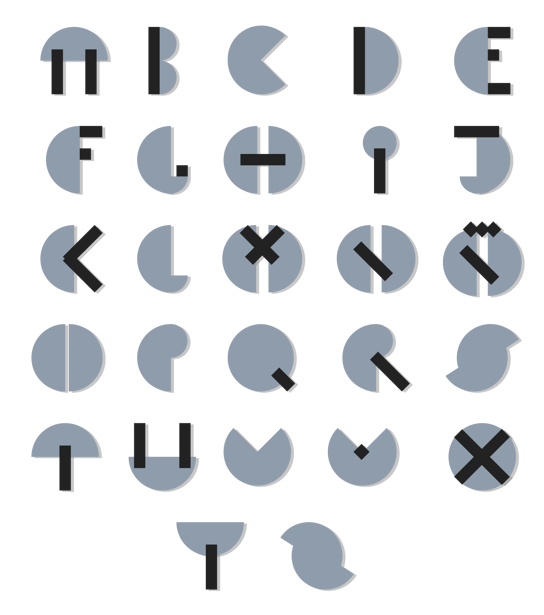
Estefania Palacios
During her graphic design studies in Barcelona in 2014, Estefania Palacios created the interesting modular display typeface Wooblo (2014). |